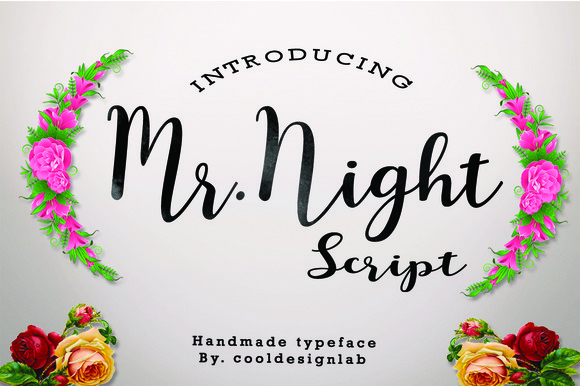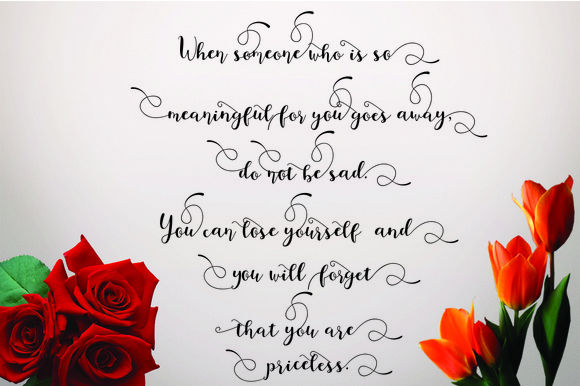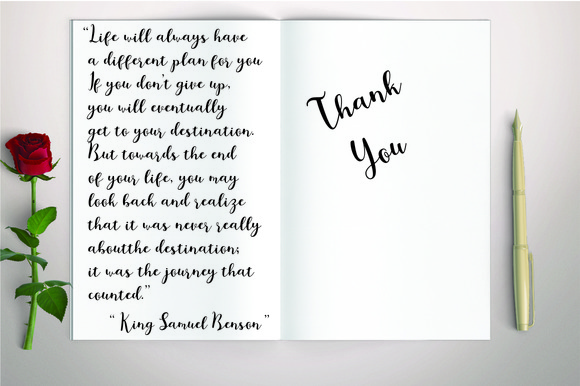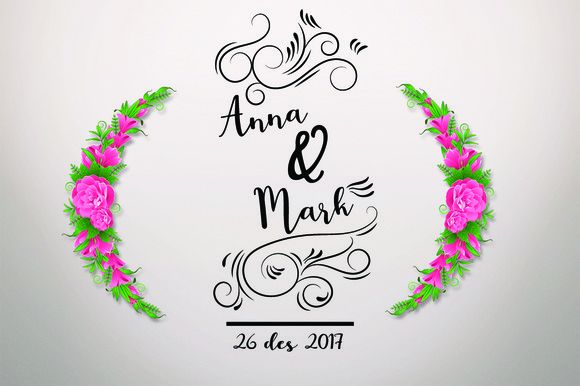
Mr. Night Font
About Mr. Night Font
Mr night is a handmade script typeface. It can be used for various purposes such as headings, logos, invitations, t-shirt designs, greeting cards, posters, labels, book covers, brochures, and much more!